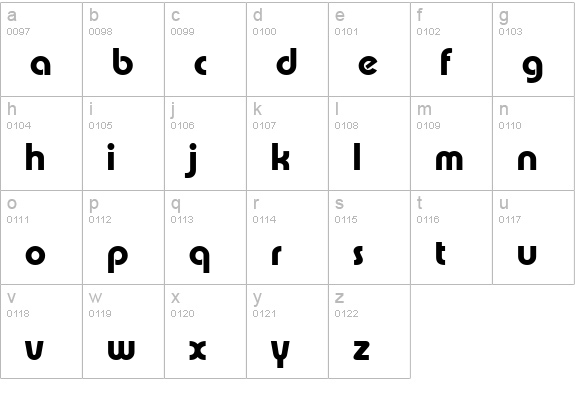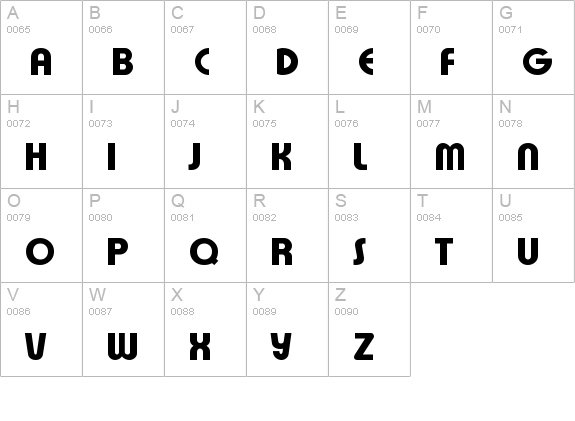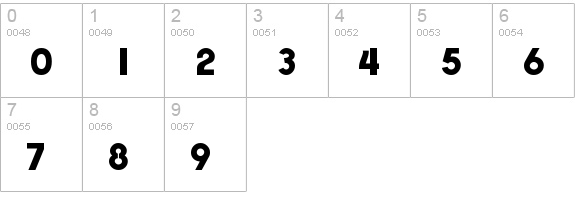
XpressiveHeavy Regular Font Details
XpressiveHeavy Regular is the standard, neutral variant in the XpressiveHeavy typeface family \xE2\x80\x94 well suited to general body text, paragraphs, and standard typographic work.
XpressiveHeavy Regular is a bold and impactful font that exudes strength and confidence. Its thick, heavy strokes make a bold statement and command attention. This font is perfect for creating eye-catching headlines, posters, and branding materials that leave a lasting impression. Best of all, XpressiveHeavy Regular is available for free download at FontsMarket.com. This means you can easily access this powerful font to elevate your design projects without any cost. Don't miss out on this opportunity to add a touch of boldness and sophistication to your creations with XpressiveHeavy Regular. Download it today and unleash your creativity!